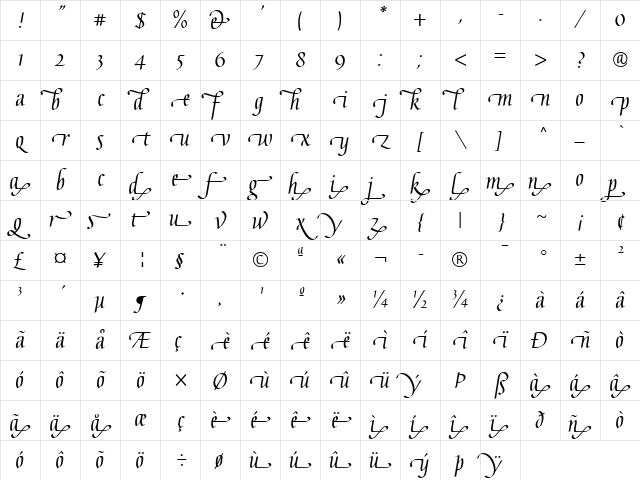
Design Context for Gaius LT RegularEnd
Gaius LT RegularEnd is a composed and adaptable typeface that performs quietly and consistently across a wide range of design contexts. Its slender proportions lend an understated elegance to any composition.
Pro Tip: Use Gaius LT RegularEnd in both headline and body roles to test its range before committing to a single application.